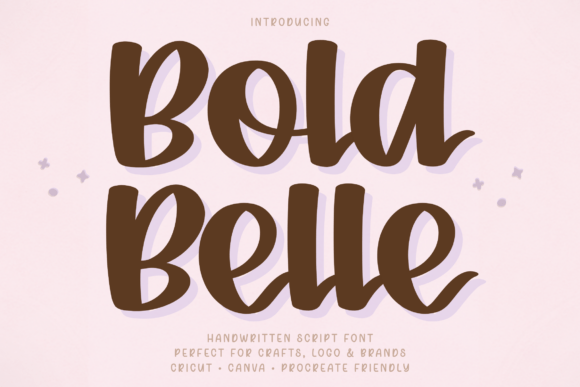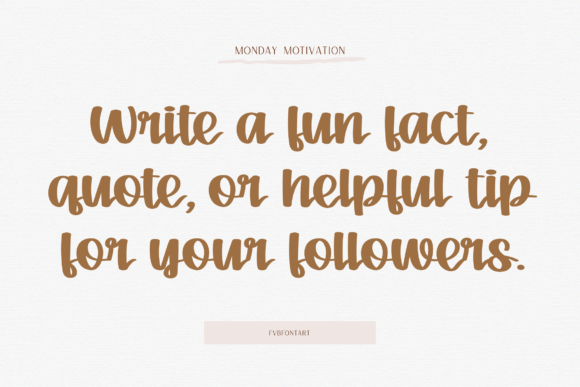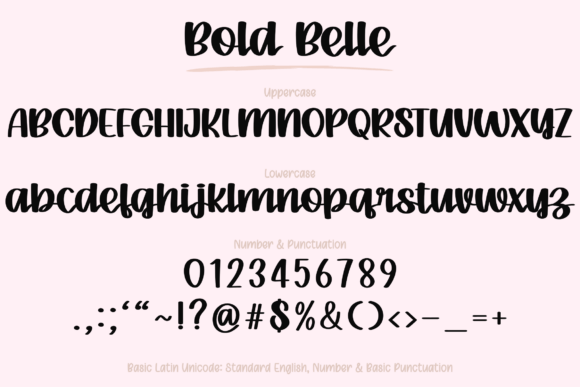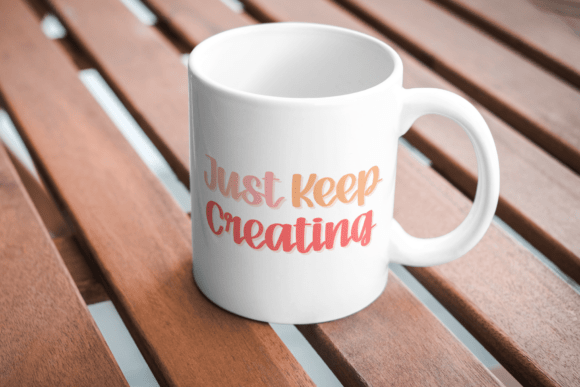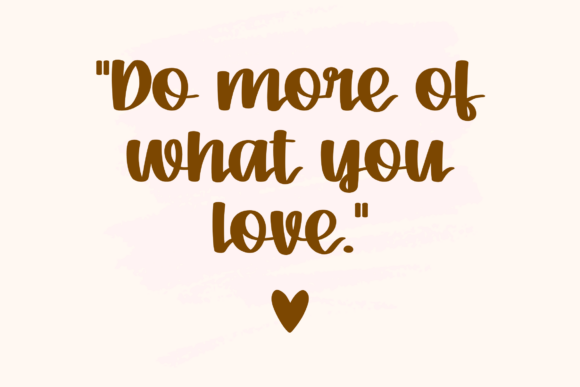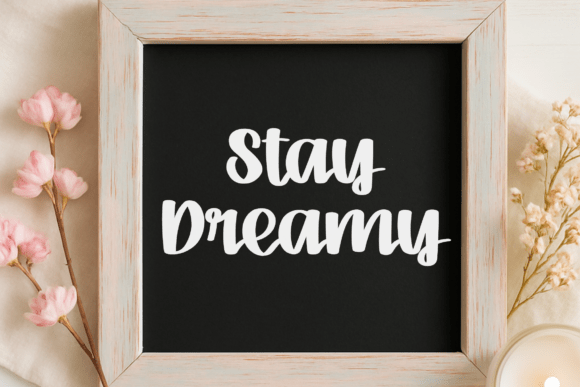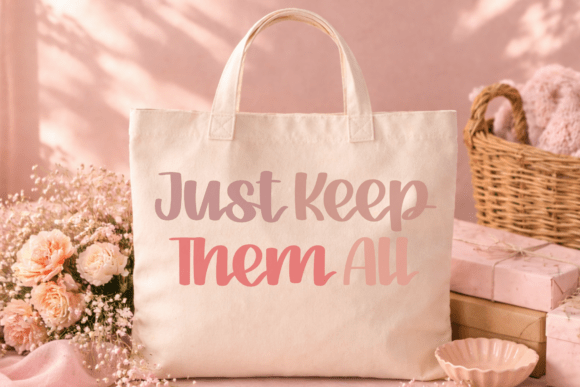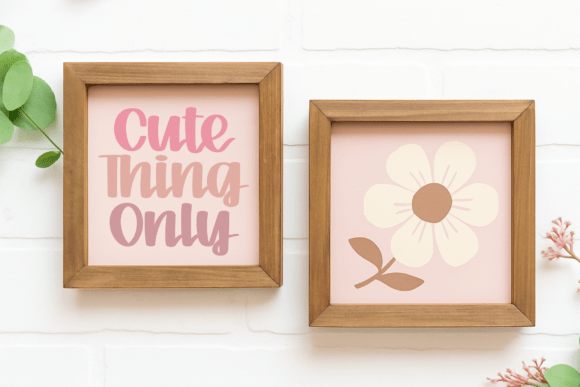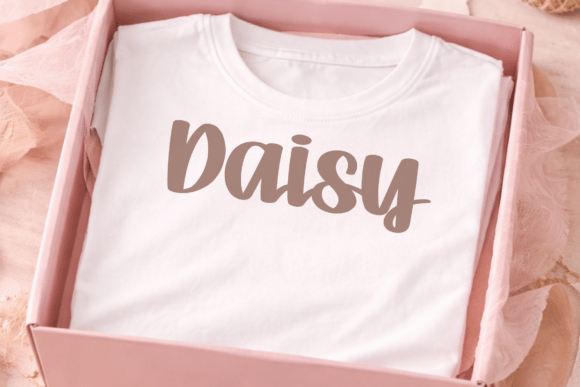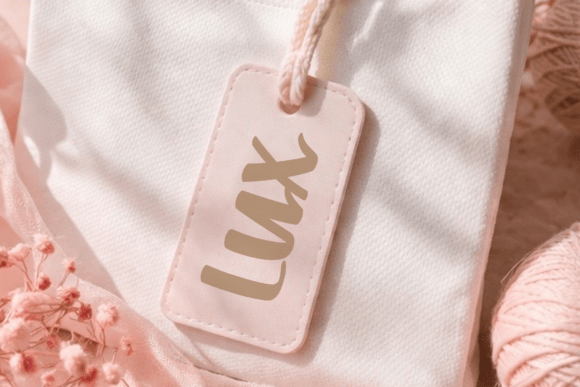
Bold Belle Script Fonts
Meet Bold Belle: a substantial, full-bodied script that marries assertive weight with a rhythmic, approachable spirit. Designed for creators who refuse to choose between impact and intimacy, this typeface features generous, rounded contours that command the page while maintaining effortless legibility. It is the visual equivalent of a firm yet friendly handshake—unmistakable, confident, and deeply grounded.
Engineered with a focus on fluid geometry and impeccable line work, Bold Belle is a powerhouse for modern identity systems and precision craft work. Its refined silhouette ensures flawless execution on high-end branding and intricate die-cutting paths alike, making it a staple for digital planners, social media curation, and tactile product design. When your project demands a voice that is both loud and lyrical, Bold Belle delivers with unparalleled poise.